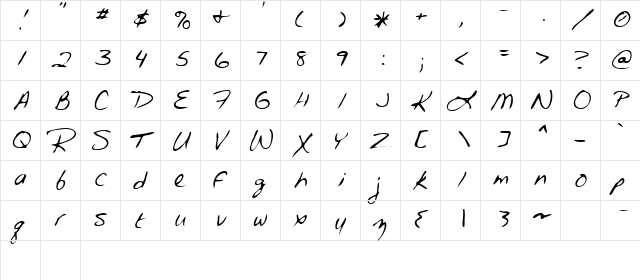
Melora Regular
Design Context for Melora Typeface
Melora is a composed and adaptable typeface that performs quietly and consistently across a wide range of design contexts.